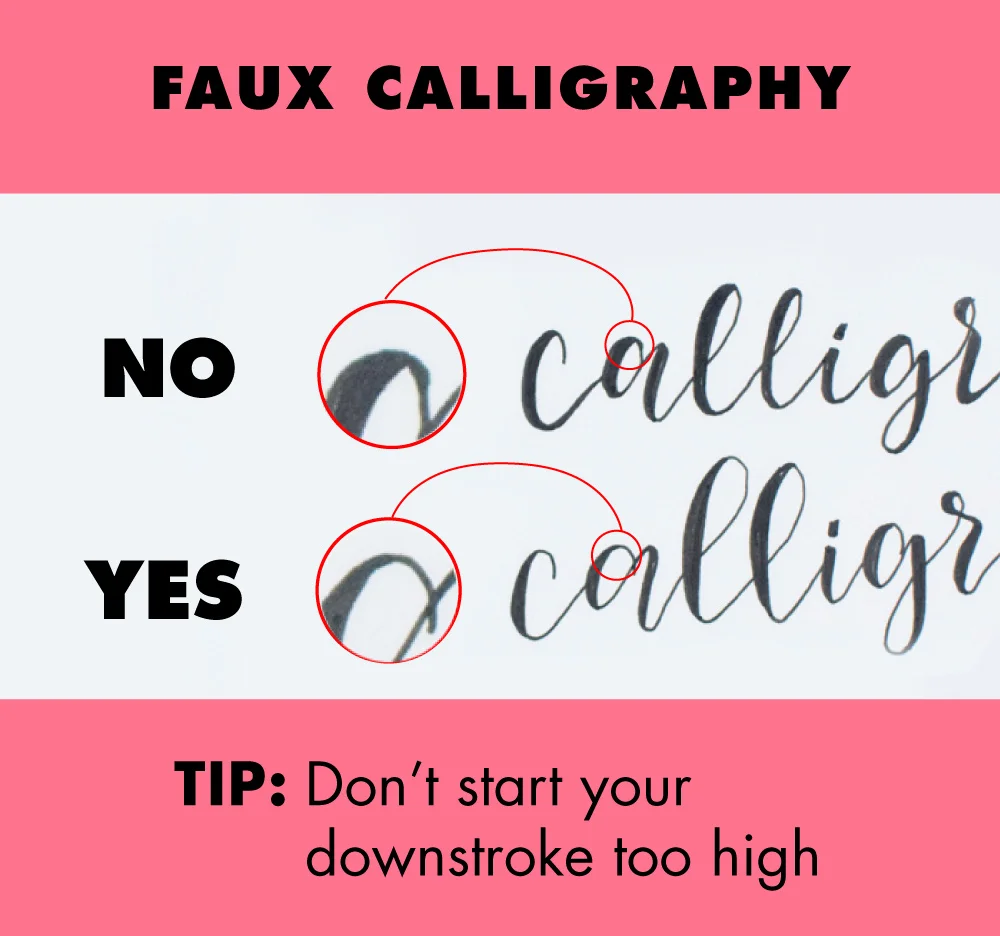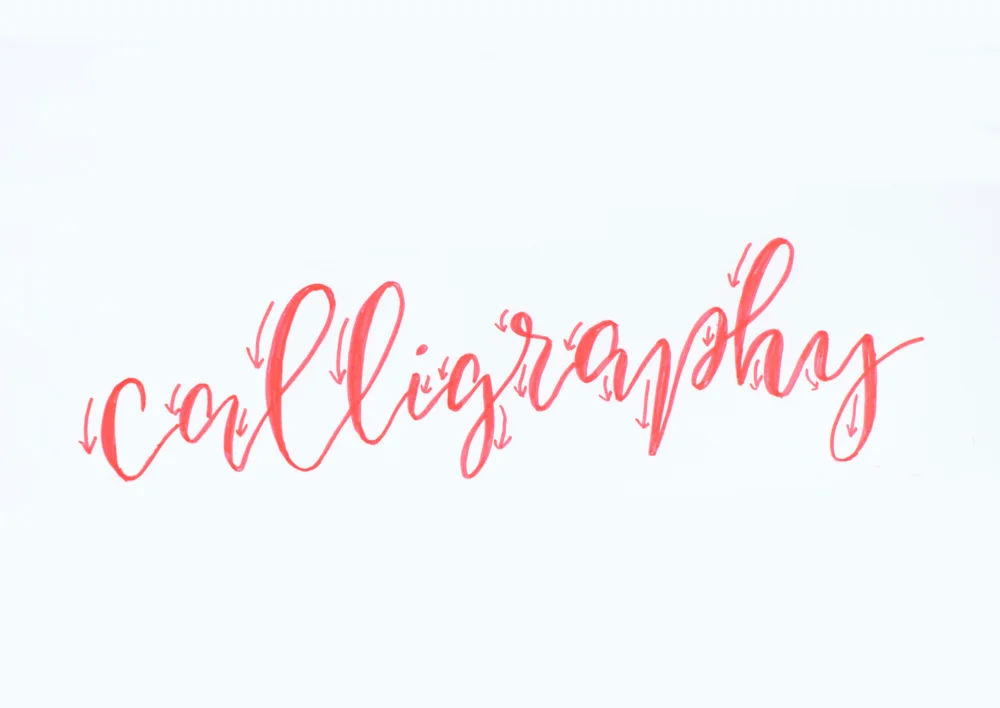
step by step calligraphy fonts tutorial
Learning the basics of the calligraphy alphabet. Ill show you how to get started creating hand lettered quotes. How to fake calligraphy step 2. When i taught myself calligraphy and wrote my 5 steps i took to teaching myself calligraphy blog post i noted that learning cursive or perfecting the cursive you were taught as a kid was an essential step in how i learned calligraphy.
A great aspect from fontself is the one time purchase instead of a monthly subscription. This tutorial will teach you how to get started with faux fake calligraphy step by step. That will make more sense once we get to the actual step by step tutorial part. The next step is to connect all these single letters to words.
How to fake calligraphy step 1. Draw in the down strokes. Learn calligraphy to address your wedding invitations address an envelope or create a piece of art. The guys at fontself really understand the concept of user friendliness and therefore they made this step very easy to follow.
Learn to write the calligraphy alphabet with these step by step instructions and free printable calligraphy alphabet worksheets. Im going to write out the word hello in both script and print. Write out your whole word whether cursive or print. Ive had requests for a more detailed tutorial on my hand lettering process.
The transitions between the letters. When drawing words you always have to think of the next letter or the first stroke of it in order to draw the right transition. Practice makes perfectimprove your handwriting to create better faux calligraphy. Each drill is very helpful and jamie provides a lot of tips and advice while showing you how to practice your lettering.
Sounds easy but theres one important thing to keep in mind. It also is easier to do faux calligraphy when youre more comfortable with cursive even if you use. It also includes free faux calligraphy worksheets for practicing.